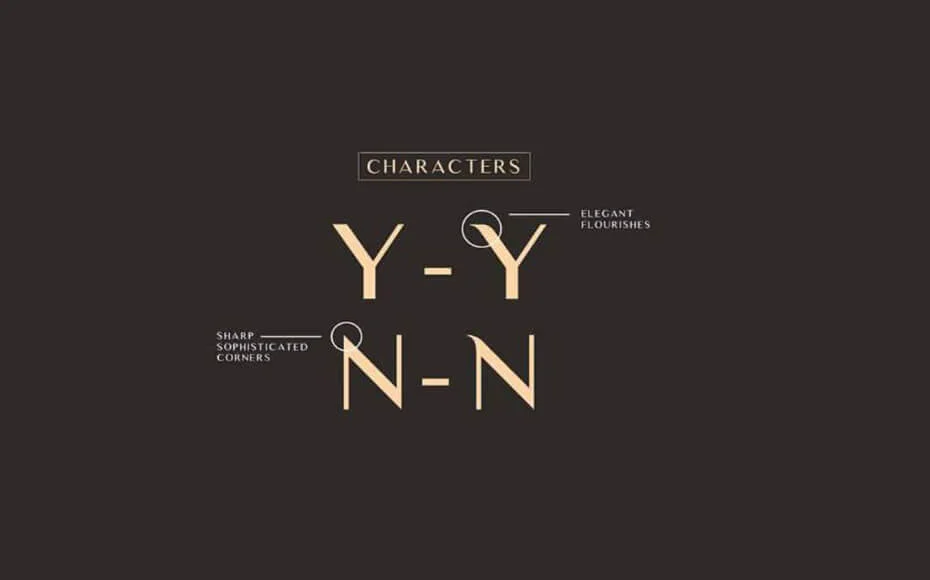
Luxia Font is a modern san-serif didone with a splash of lavish characters that have plenty of potentials to work well in a wide variety of design scenarios.
Andrew Herndon is a Graphic Designer based in Arkansas, first took charge of designing it and released it on 07 July 2016.
It has stunning textures with stunning characters. The look of this font is balanced, and harmonious, and gives a personal touch that humanizes the look of digital text.
Many designers are using it for their various designing purposes due to its very clear look and wide language support.
We can also use it for different projects. Like creating an amazing layout with this invitation or business cards, banner designs, brochure layouts, and poster designs. In addition, you can write a book, print weddings, movie titles, and others.
This fine-quality font family is available in nine different styles regular, semi-bold display, and so on.